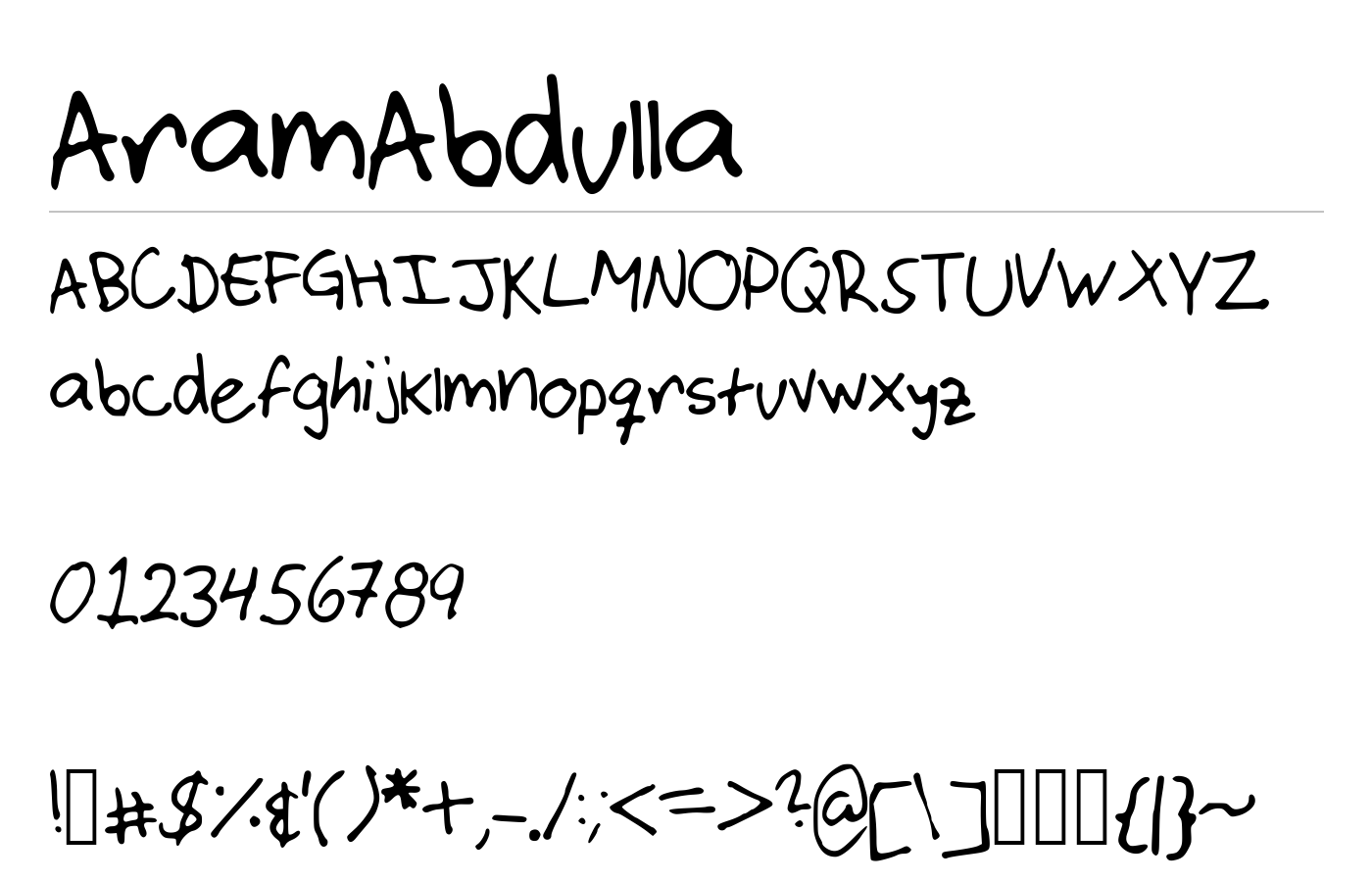
AramAbdulla is a playful and informal handwritten font that features irregular, slightly quirky letterforms with a casual and approachable vibe. Its moderate weight and lively stroke variations make it ideal for creative, fun, and personal designs such as invitations, children’s books, or casual branding. This font works well in contexts where a friendly and expressive tone is desired, bringing warmth and personality to headlines, logos, and social media graphics.
AramAbdulla Font
About AramAbdulla Font